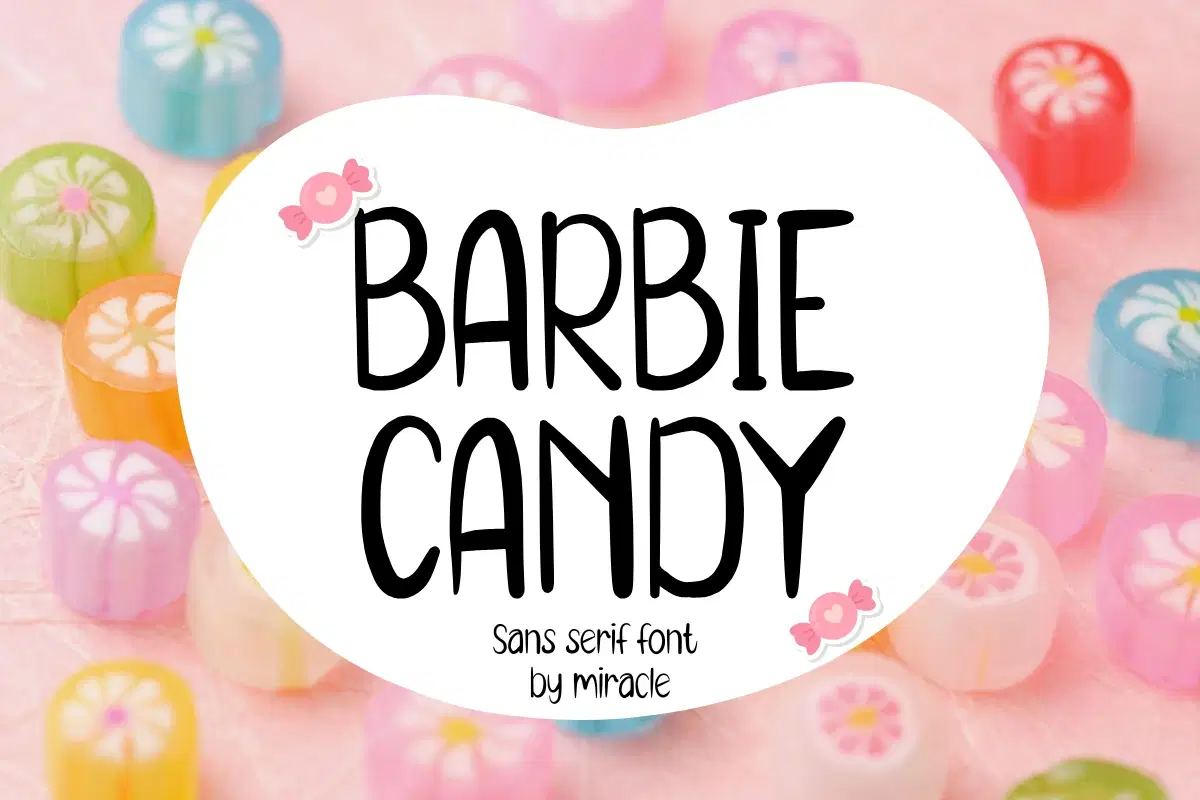
Step into a world of sweetness with Barbie Candy, a vibrant sans serif font by Miracle. Designed with a fun, hand-drawn personality, this font captures the essence of joy and creativity. Its tall, slender letterforms and organic feel make it the perfect choice for projects that need a pop of energy and a dash of cuteness.
Barbie Candy is incredibly versatile, making it ideal for everything from candy shop branding to trendy social media templates. Its clean yet whimsical style ensures that your designs remain legible while oozing charm and personality.